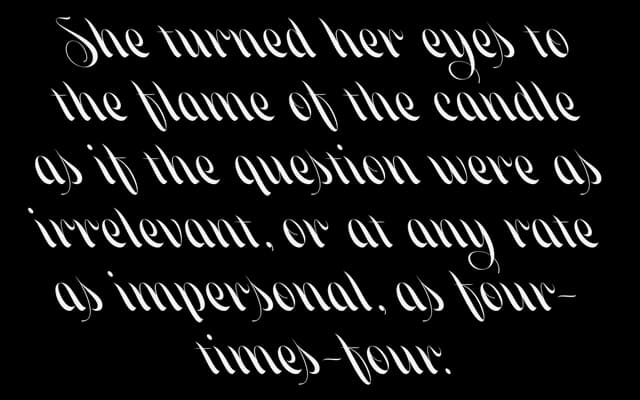
A back-slanted script with 323 glyphs, including extensive ligatures, swashes and alternates for versatile expressive use.
The reverse slant gives this script an unusual visual tension, leaning against the direction of reading rather than with it. A large glyph set of 323 characters includes dozens of ligatures, swashes and alternates, offering considerable variation for display and editorial contexts. The storytelling copy on the product page sets a gothic, intimate tone that suits the font's character well.
Classified as script due to its flowing, calligraphic character and extensive ligature set; the back-slant is an unusual structural choice that distinguishes it from conventional italic or upright scripts.